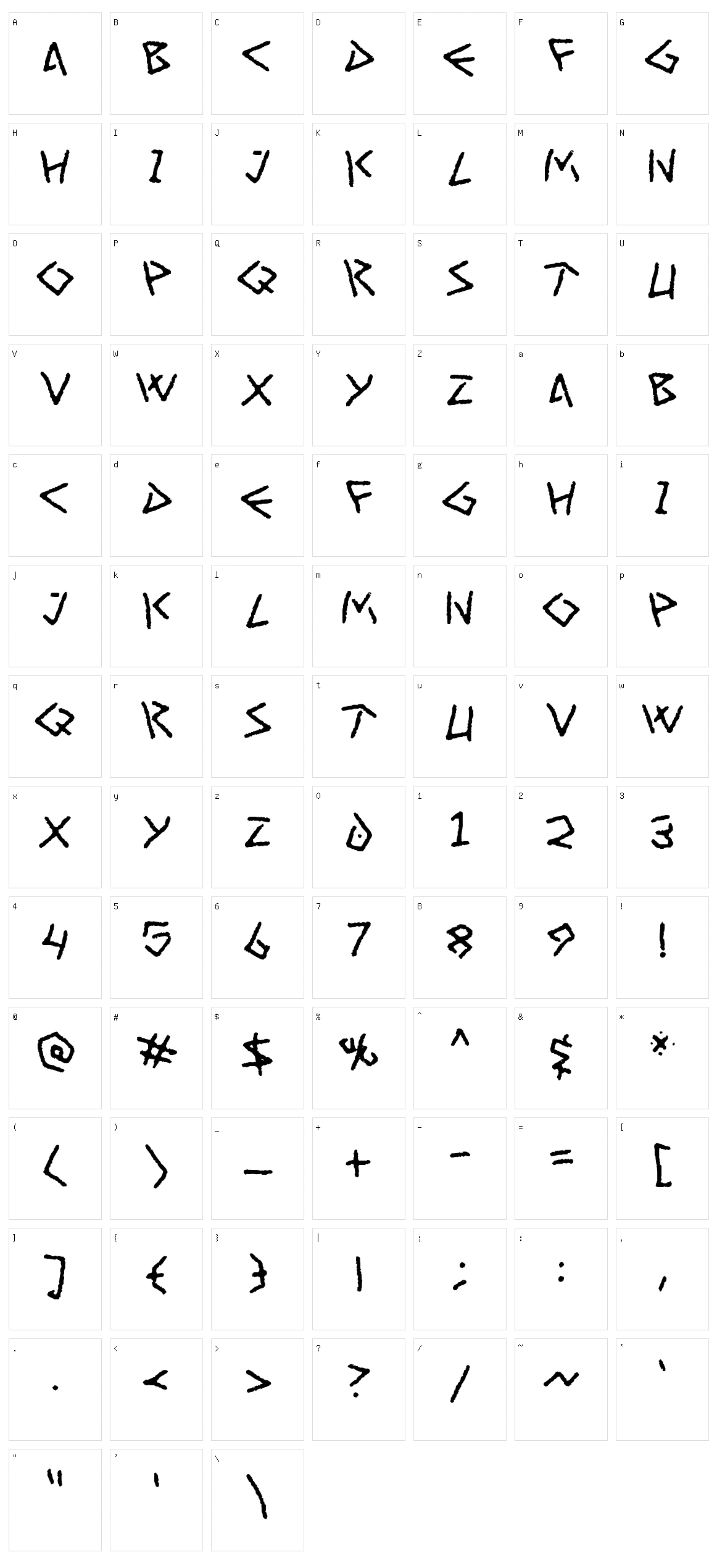
ART GRECO
A TrueType Font by S. John Ross
We've been moving into a new apartment over the last couple of days, so the regular computer is still boxed and life is a little chaotic. That's pretty much the whole story behind this all-caps font, assembled from a folder of doodles and experiments that I dip into on just such an occasion. It's a messy-souvlaki kind of font.